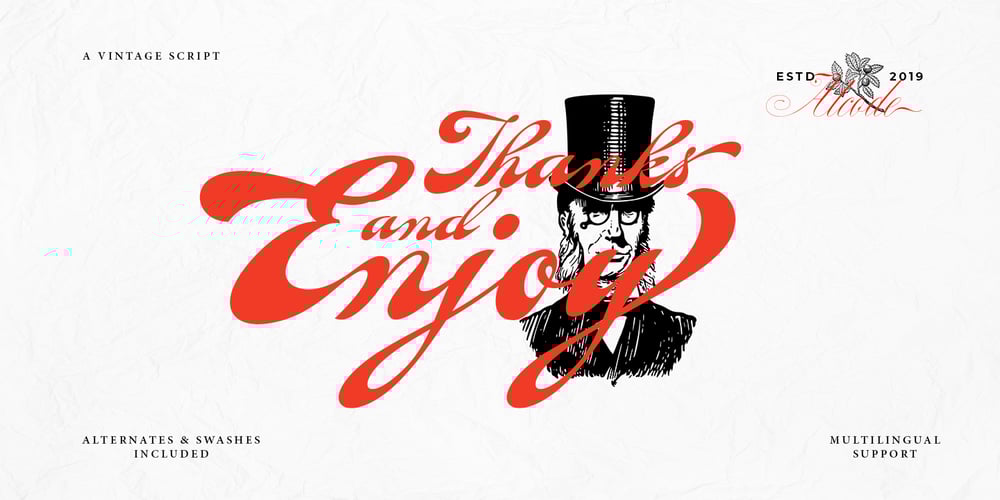
Fantera Font Family was designed by Sukjana Almunandar and published by Alcode. Fantera contains 1 styles and family package options. Fantera is a script typeface vintage style. Every letter has been carefully crafted to make your text look beautiful. This font is perfect for logos, badges, shirts, labels, clothing designs, etc. With Fantera, enjoy the wealth of OpenType features and let elegant fun and pleasure make you happy and increase your creativity! You can use this font very easily.